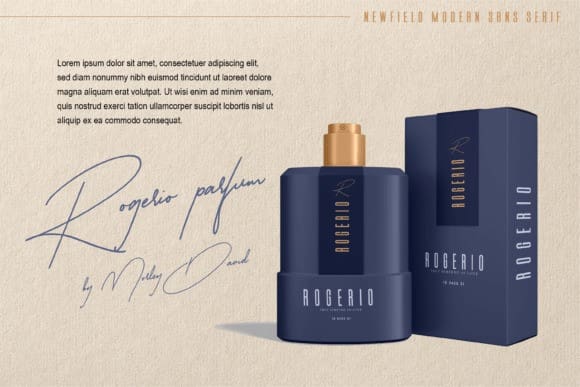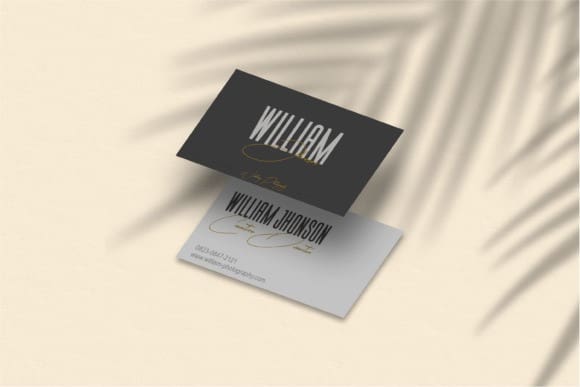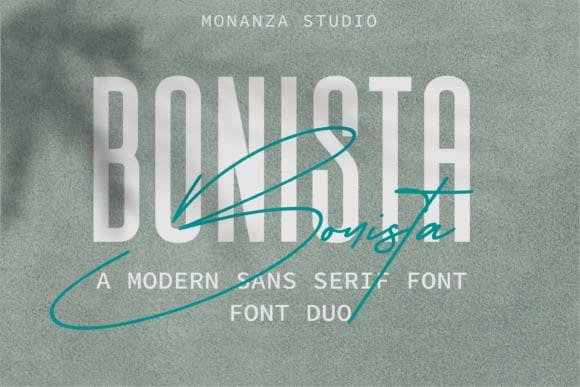
Bonista Font Duo
Bonista Font Duo, comprises two font styles: a contemporary sans-serif and a graceful script. These fonts seamlessly blend the clean lines of sans-serif with the exquisite beauty of script, making them a perfect choice for a wide range of design purposes.